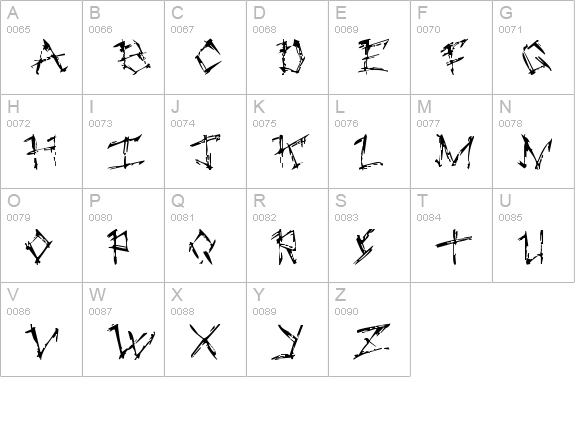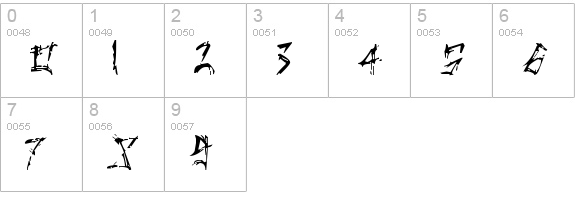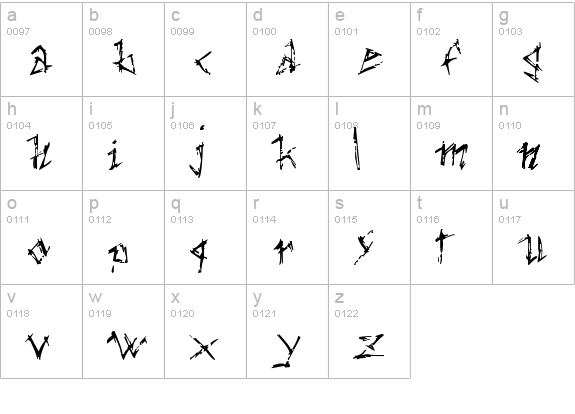
Introducing the Dark Ages font - a captivating typeface that transports you to a time of mystery, intrigue, and untamed beauty. With its intricate and ornate letterforms, this font embodies the essence of the medieval era, evoking a sense of darkness and enchantment. The Dark Ages font possesses a timeless elegance, showcasing the craftsmanship of a bygone era. Its bold, dramatic strokes create an air of authority and power, making it perfect for historical projects, fantasy novels, or any design seeking to make a statement. But what sets the Dark Ages font apart is its versatility. Whether you're looking to add a touch of medieval charm to your website, create eye-catching headlines for a poster, or design an unforgettable logo, this font can effortlessly adapt to any project. And the best part? The Dark Ages font is available for free! That's right - you can download this exceptional font at FontsMarket.com without spending a dime. We believe that creativity should be accessible to all, and that's why we're making this unique font freely available for everyone to enjoy. So, if you're ready to unleash the allure and mystique of the Dark Ages in your designs, don't hesitate to download this remarkable font today. Embrace the past, embrace the darkness, and let your creativity soar with the Dark Ages font from FontsMarket.com.